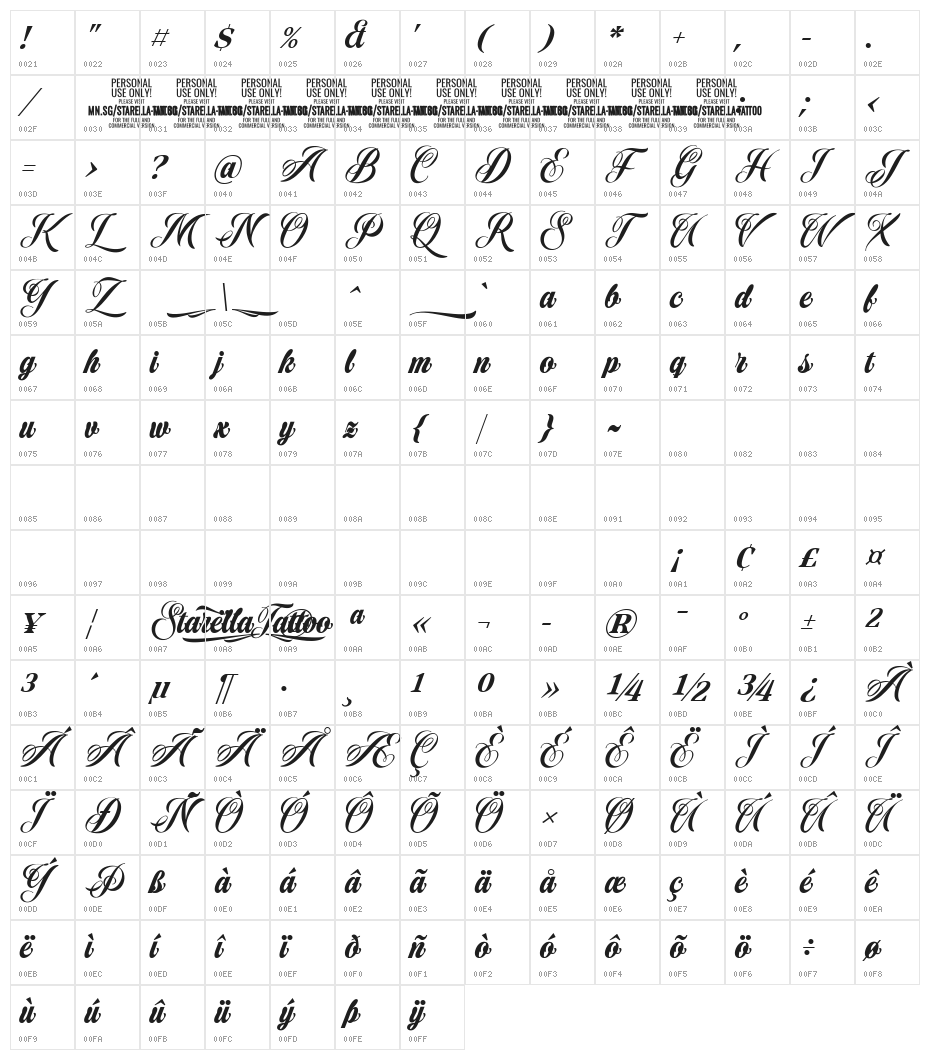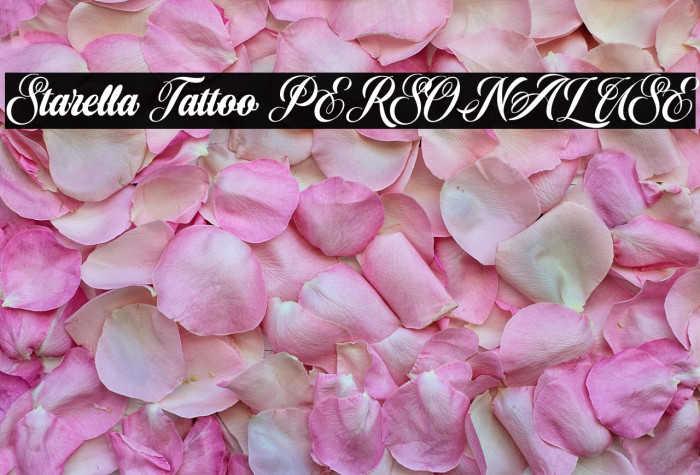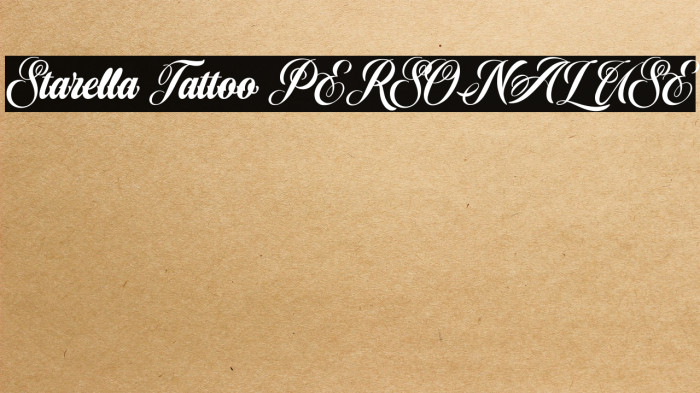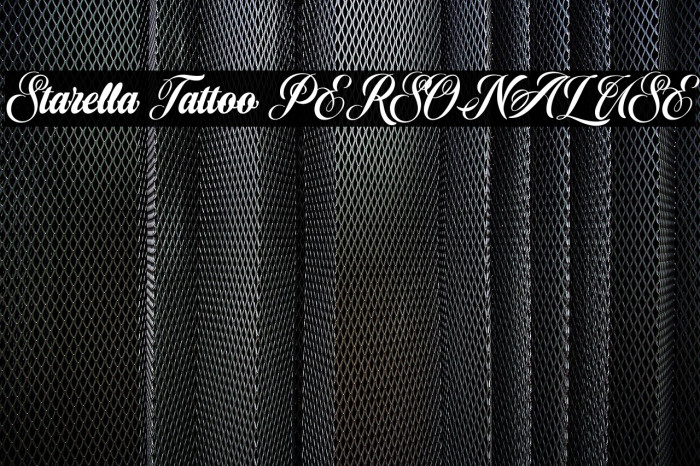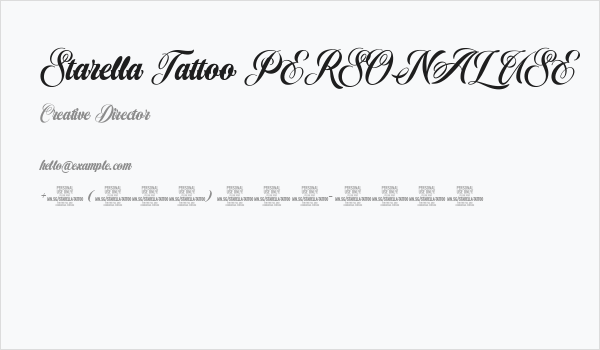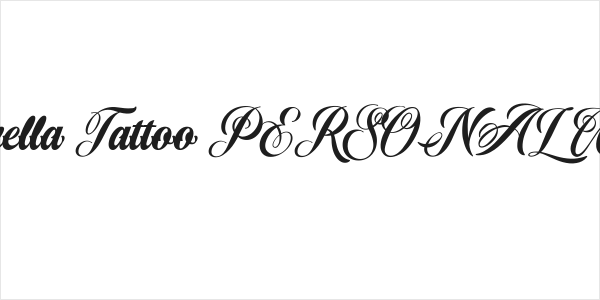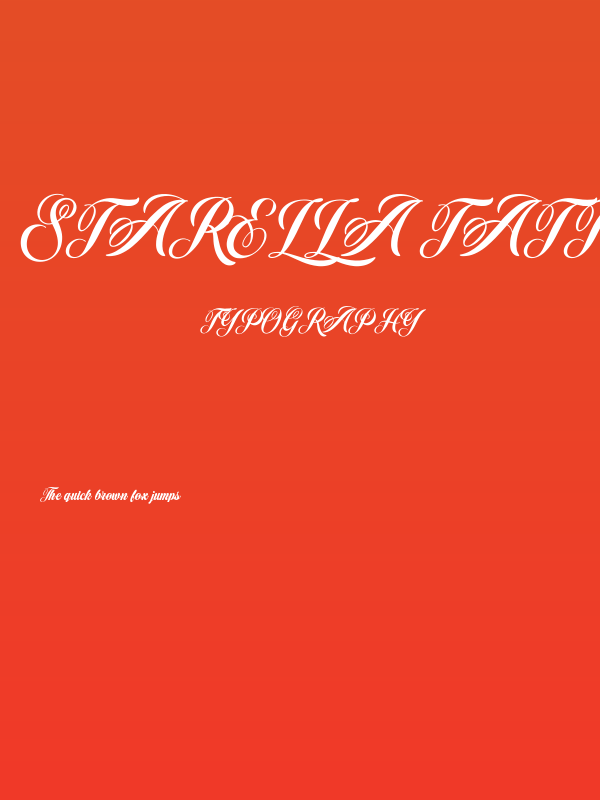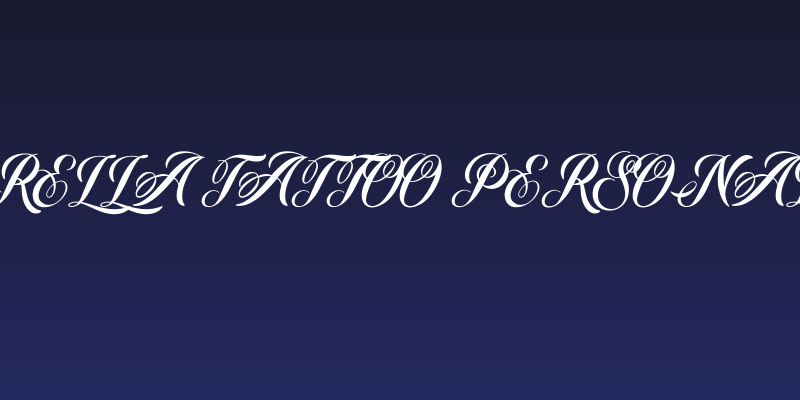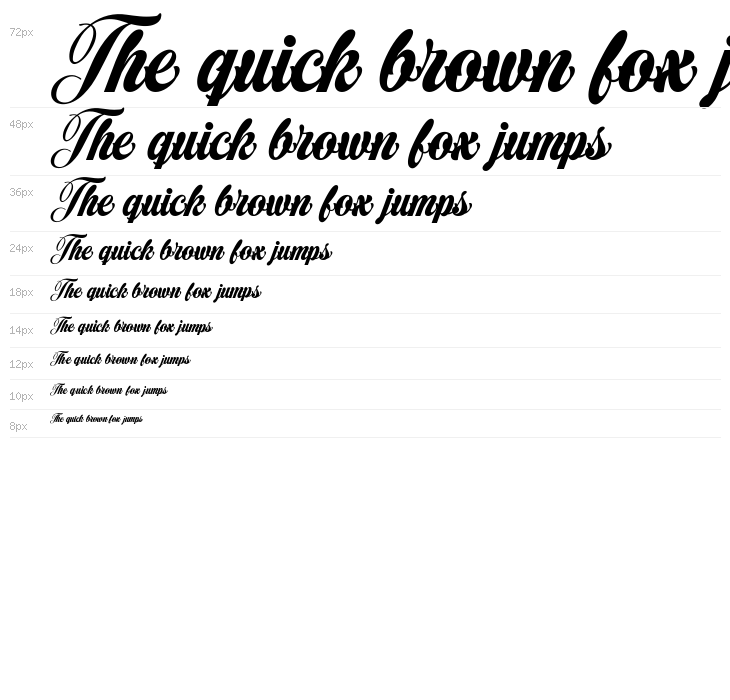
Starella Tattoo PERSONAL USE Font
Starella Tattoo PERSONAL USE Description
This font features an elegant and flowing script style, characterized by its ornate and decorative letterforms. The uppercase letters are particularly elaborate, with intricate swirls and loops that give a sense of movement and grace. The lowercase letters maintain a bold presence, complementing the uppercase with a more straightforward yet still stylish design. The font includes a full set of numerals and a variety of special characters, all maintaining the same decorative flair. It is well-suited for designs that require a touch of sophistication and artistic expression.
| Use Case | Logos, Headlines, Artistic designs |
| Proposed Projects | Ideal for tattoo designs, wedding invitations, branding projects, and any creative work requiring a sophisticated and artistic touch. |